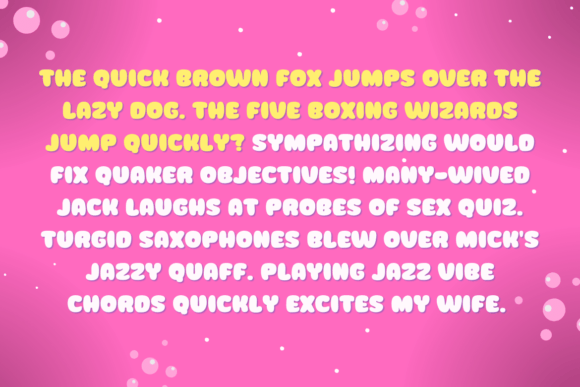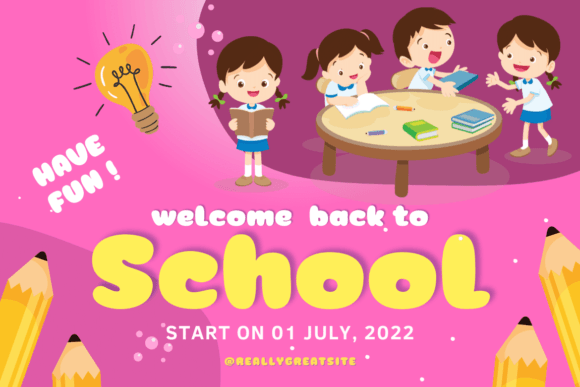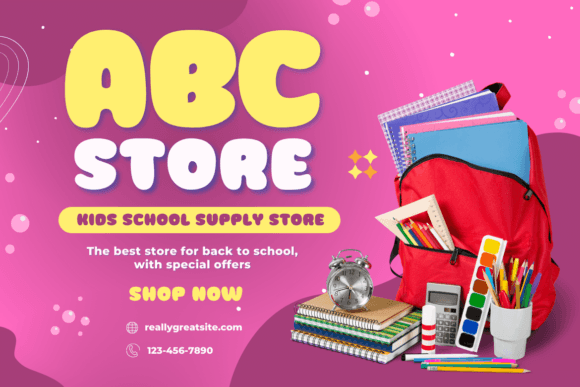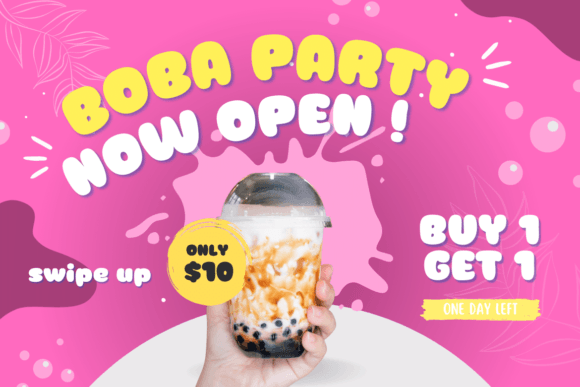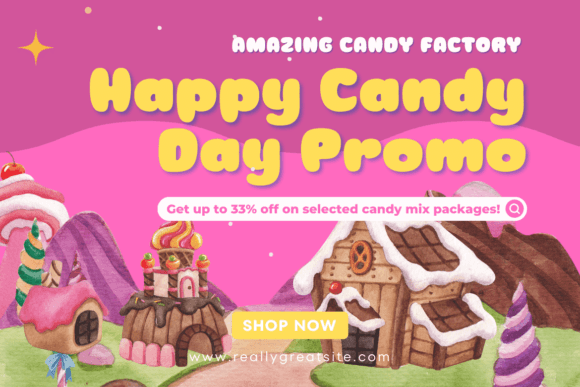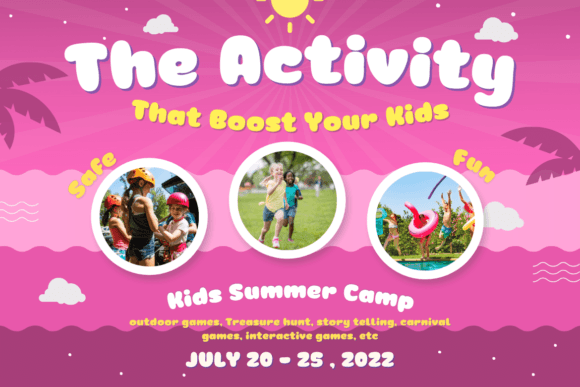
Introduction to Heycaz Font
Imagine you’re brainstorming ideas for your next creative project, and you’re stuck on the perfect font to capture the essence of your vision. The words start flowing, and you see it in your mind’s eye: a bold, playful title that pops against a transparent background, making your design stand out. That’s where the Heycaz Font comes in – a quirky and cute display font designed with passion and fun.
As a valuable resource for designers, the Heycaz Font offers a unique touch to any project. Its high-quality design makes it perfect for titles, subtitles, and even sentence text. With its free download option, you can experiment with this creative font without breaking the bank. Whether you’re working on a commercial project or a personal endeavor, the Heycaz Font is sure to bring an extra layer of excitement to your design.
Key Features of Heycaz Font
- High-quality, professional font perfect for creative projects and design resources.
- Unique, stylish design with a transparent background, allowing for easy layering and customization.
- Includes multiple weights and styles, providing flexibility for designers to choose the perfect fit for their project.
- Designed to be easily scalable, making it perfect for use in a variety of sizes and applications.
Honest Review: Heycaz Font
I recently had the chance to work with the Heycaz Font, and I must say, it’s been a delightful experience. As a designer, I’m always on the lookout for high-quality design resources that can elevate my creative project. The Heycaz Font definitely fits the bill.
- ✨ The font’s unique and quirky design makes it perfect for adding a touch of personality to your design.
- ✨ The high-quality design ensures that the font looks great on a transparent background, making it versatile for various design applications.
- ⚠️ The font may not be suitable for all types of design projects, as its unique style may not appeal to everyone.
- ⚠️ Some users may find the font a bit difficult to read in certain contexts.
Overall, I’m quite impressed with the Heycaz Font. Its unique design and high-quality execution make it a valuable addition to any designer’s toolkit. If you’re looking for a creative and free design resource, the Heycaz Font is definitely worth checking out.
Tips for Getting the Most Out of Heycaz Font
The Heycaz Font is ideal for use in creative projects, such as graphic design, digital art, and typography. You can use the font to create eye-catching titles, headings, and body text for your designs. The font is also great for use in presentations, documents, and other business materials.